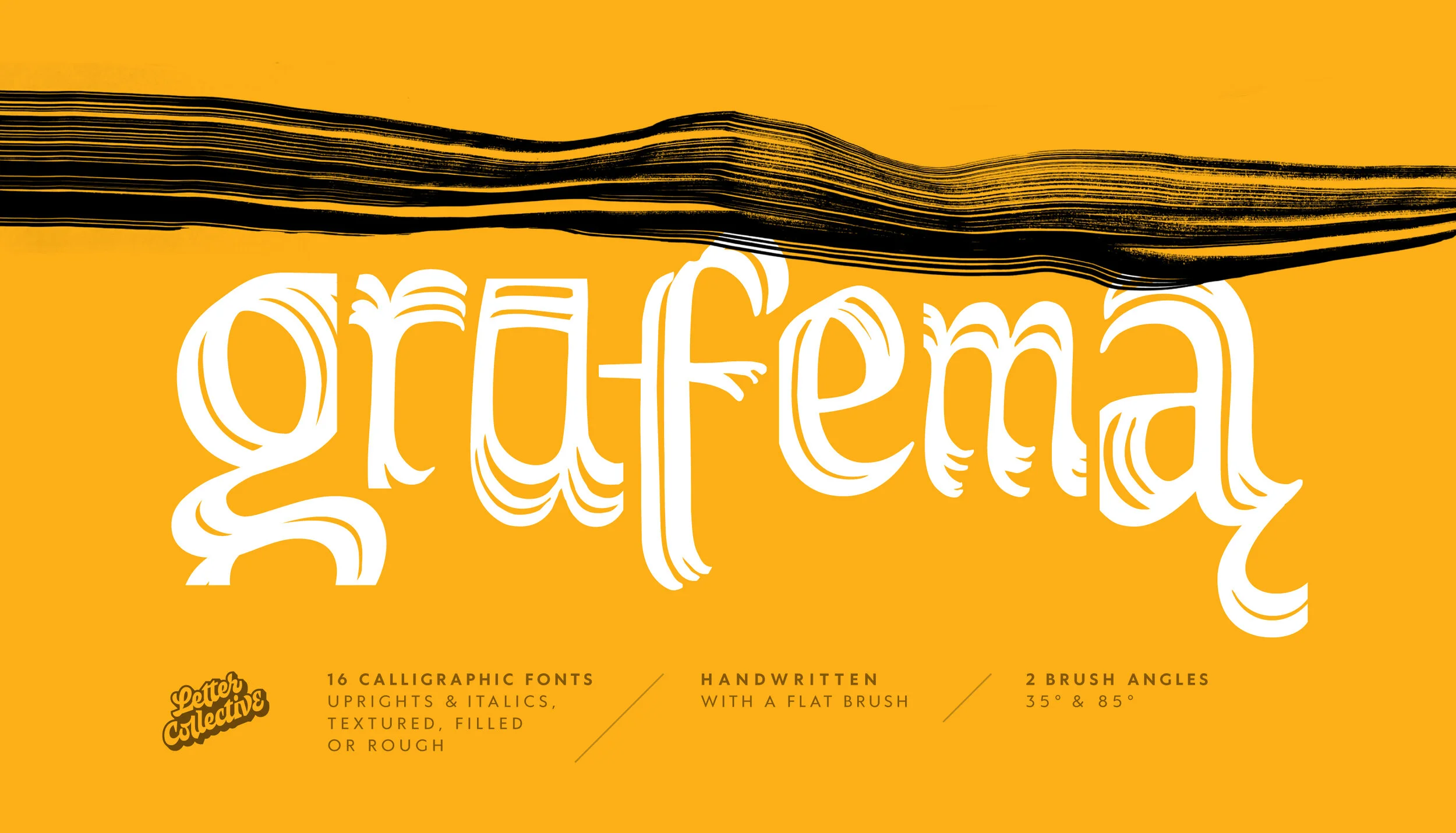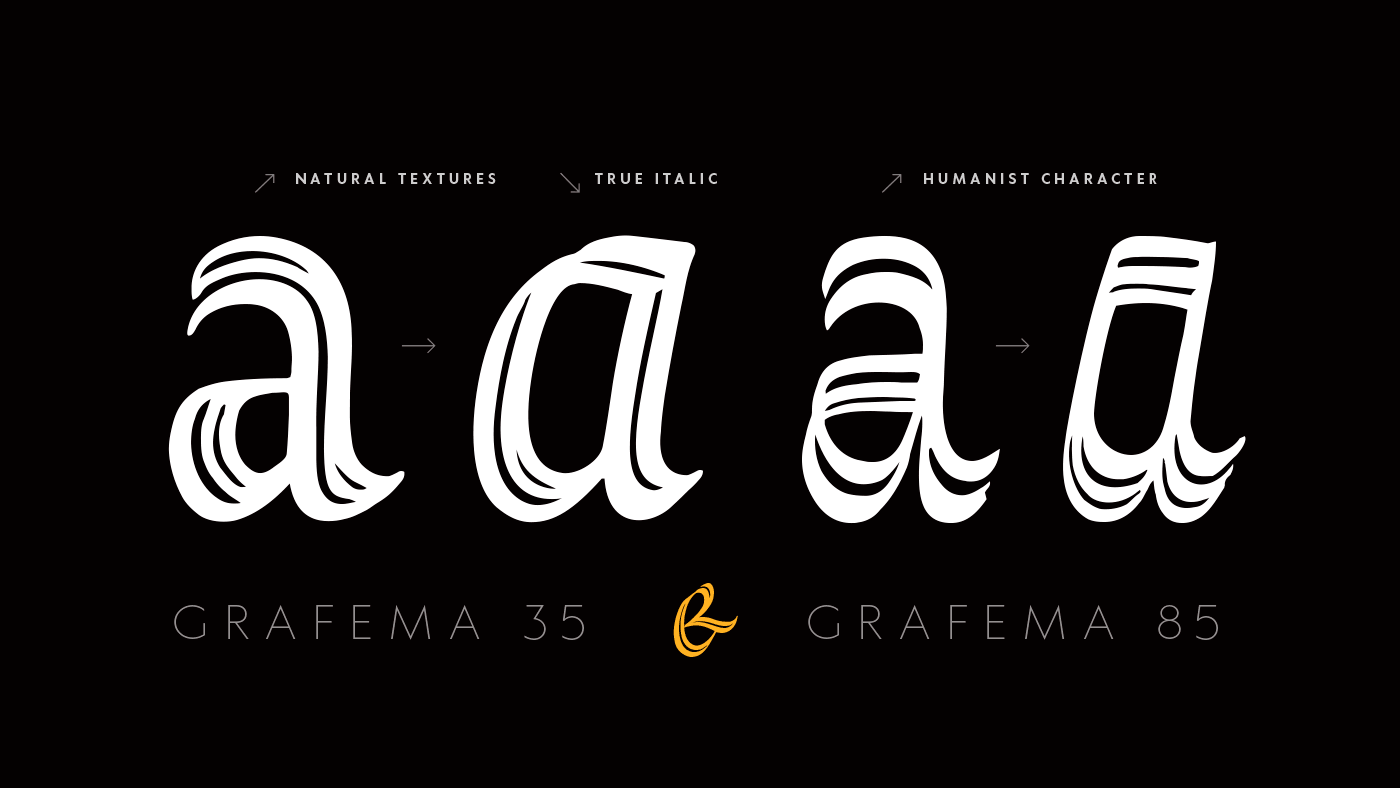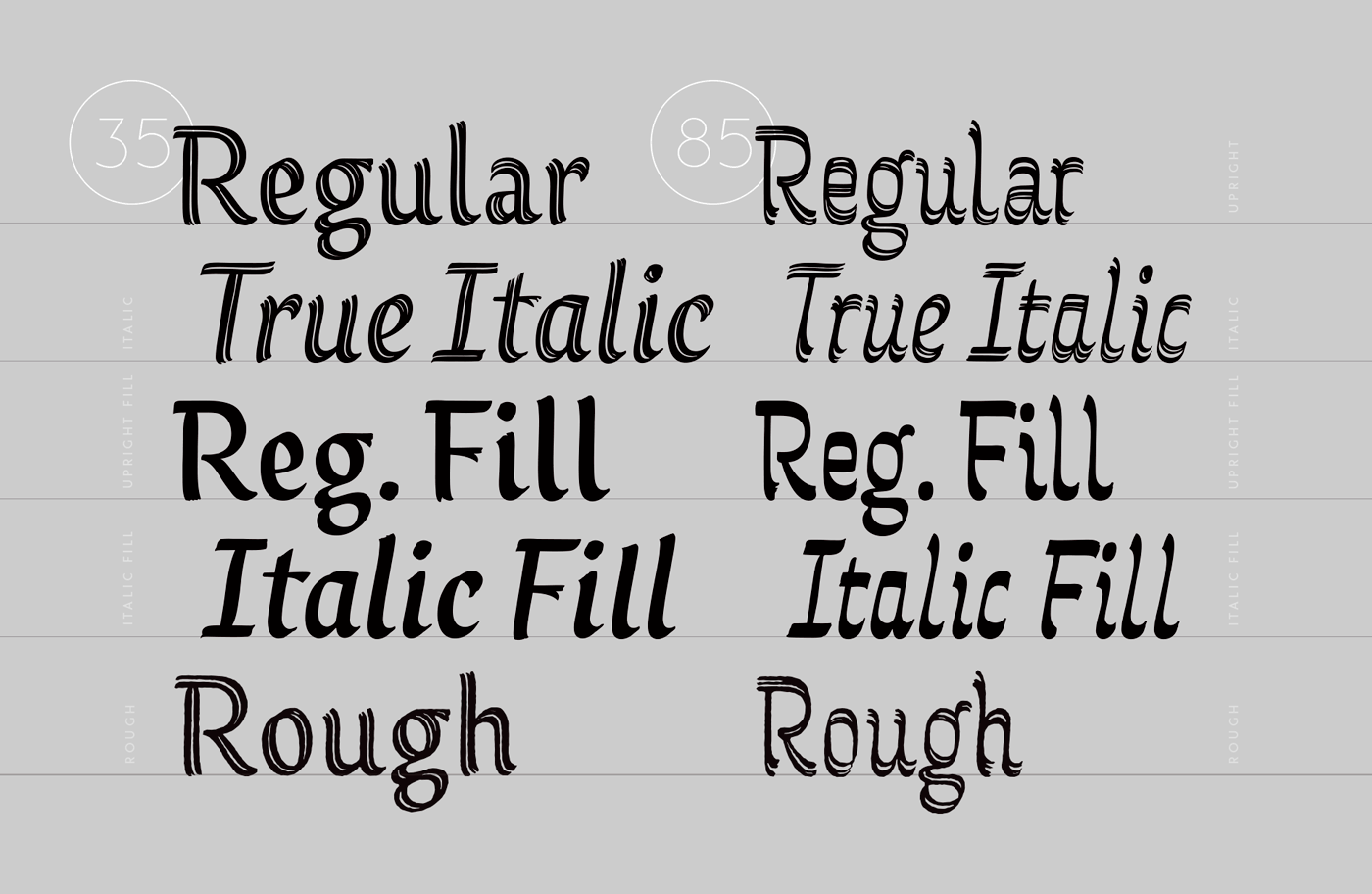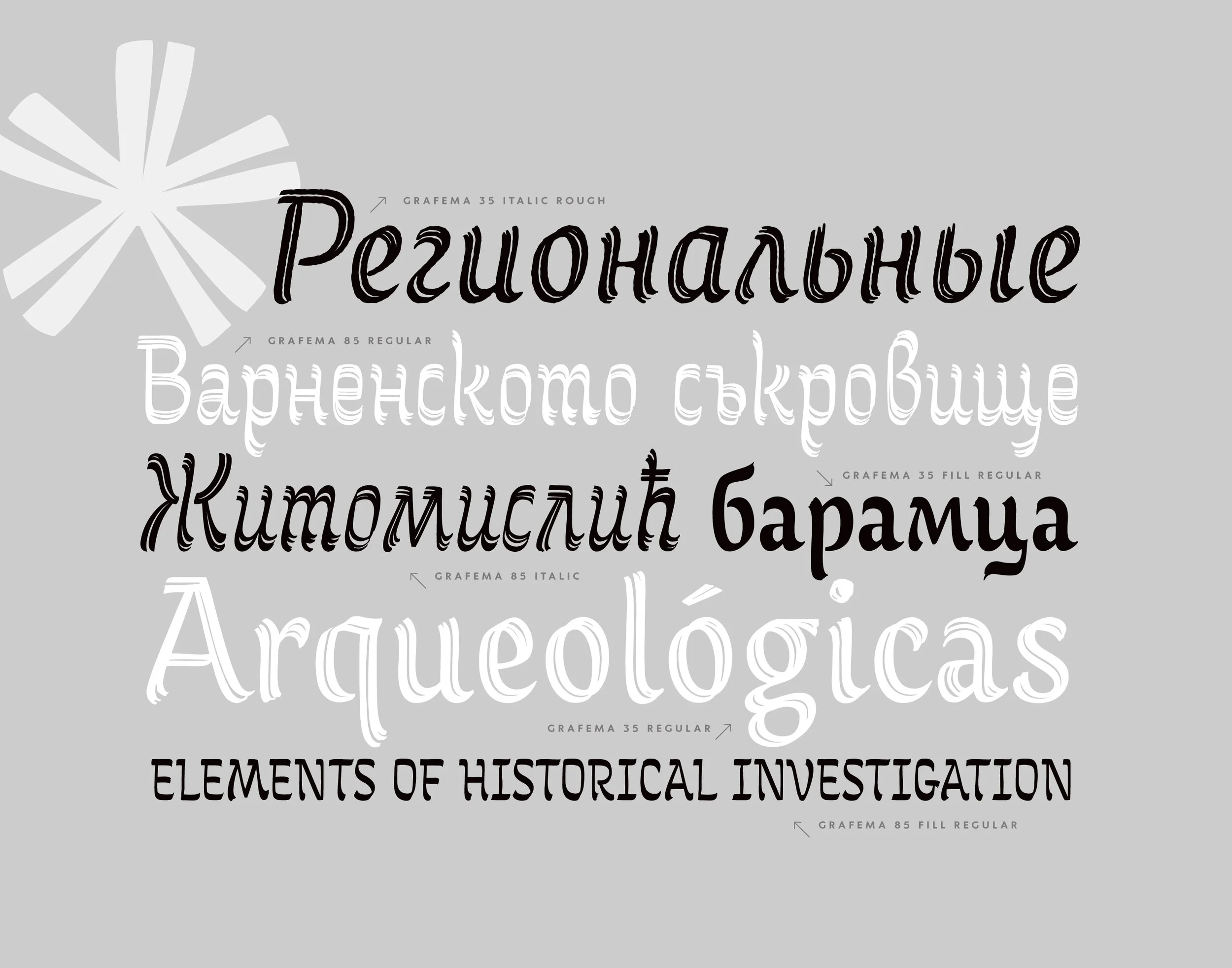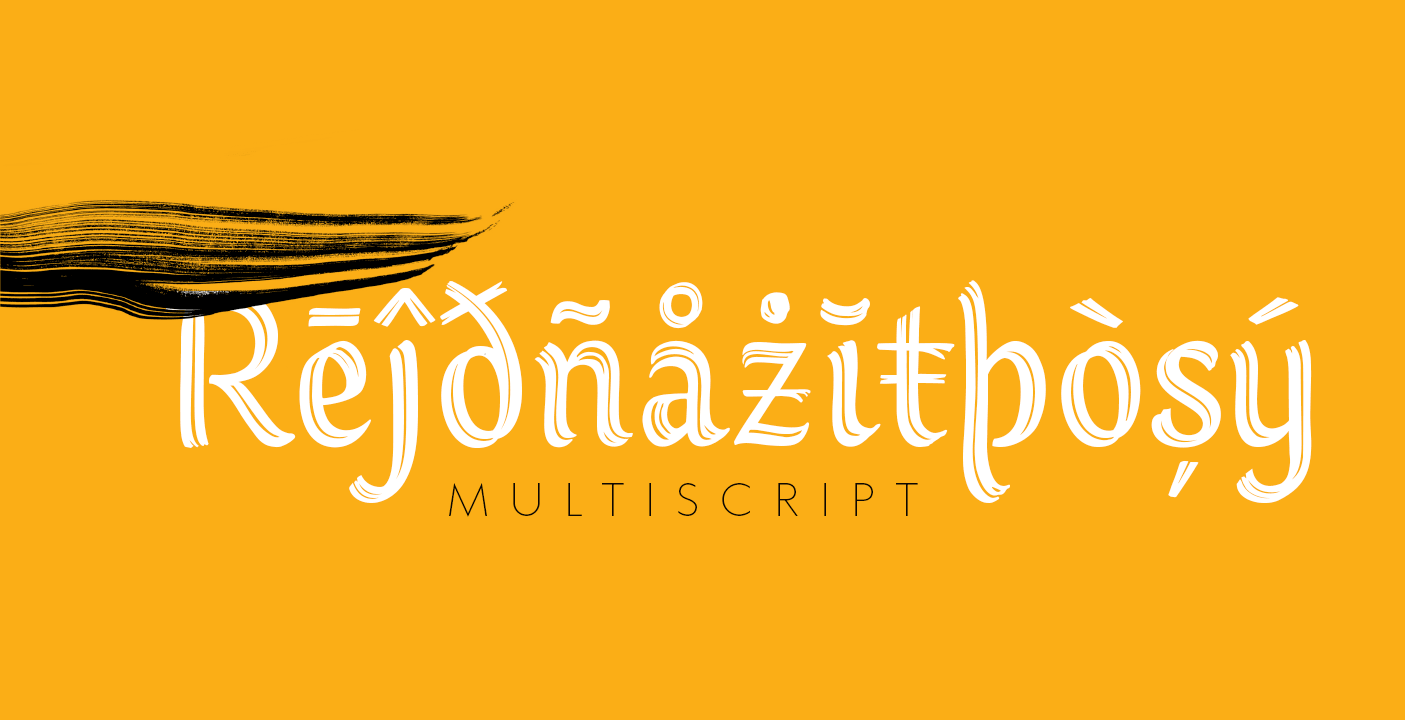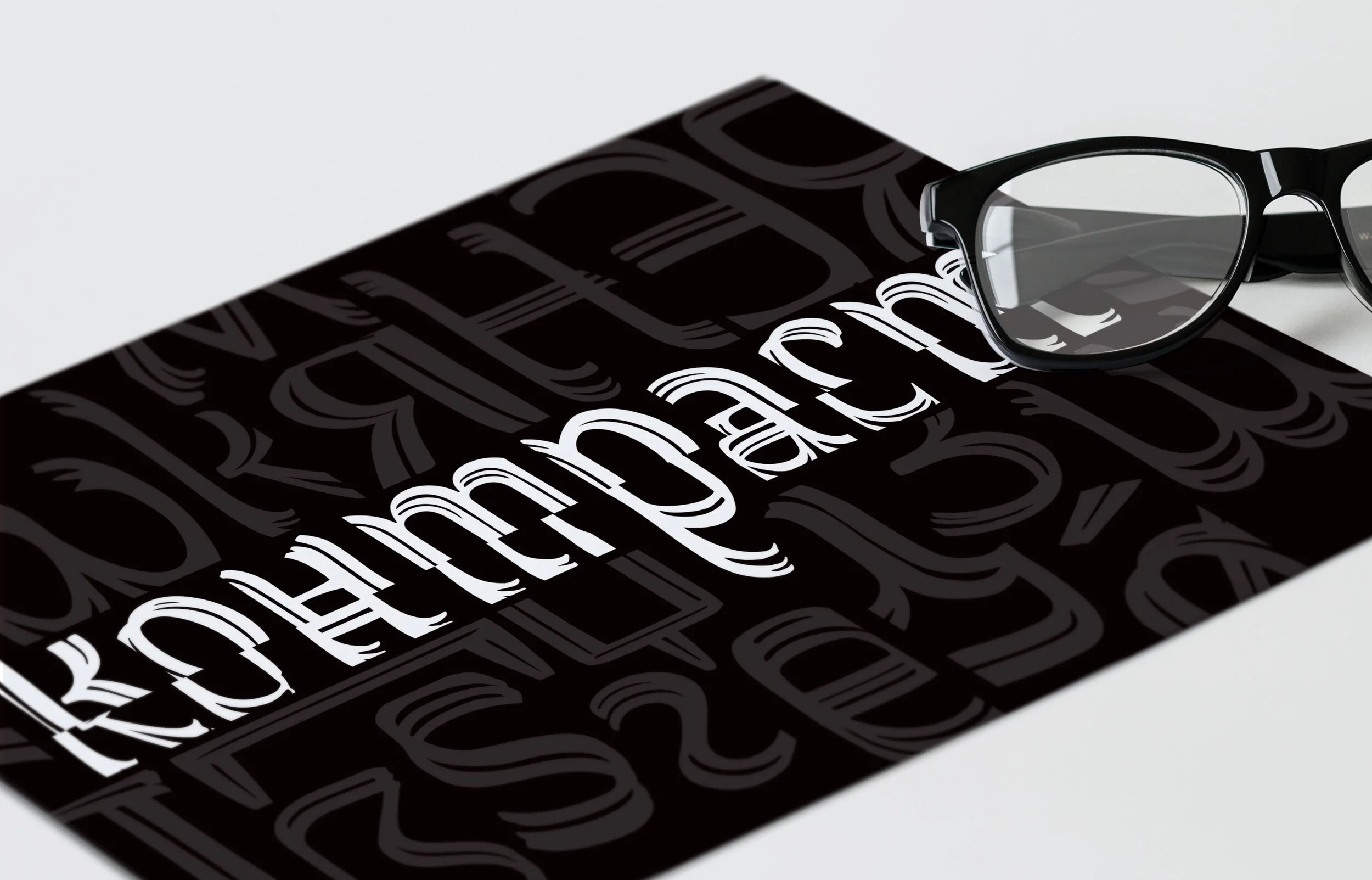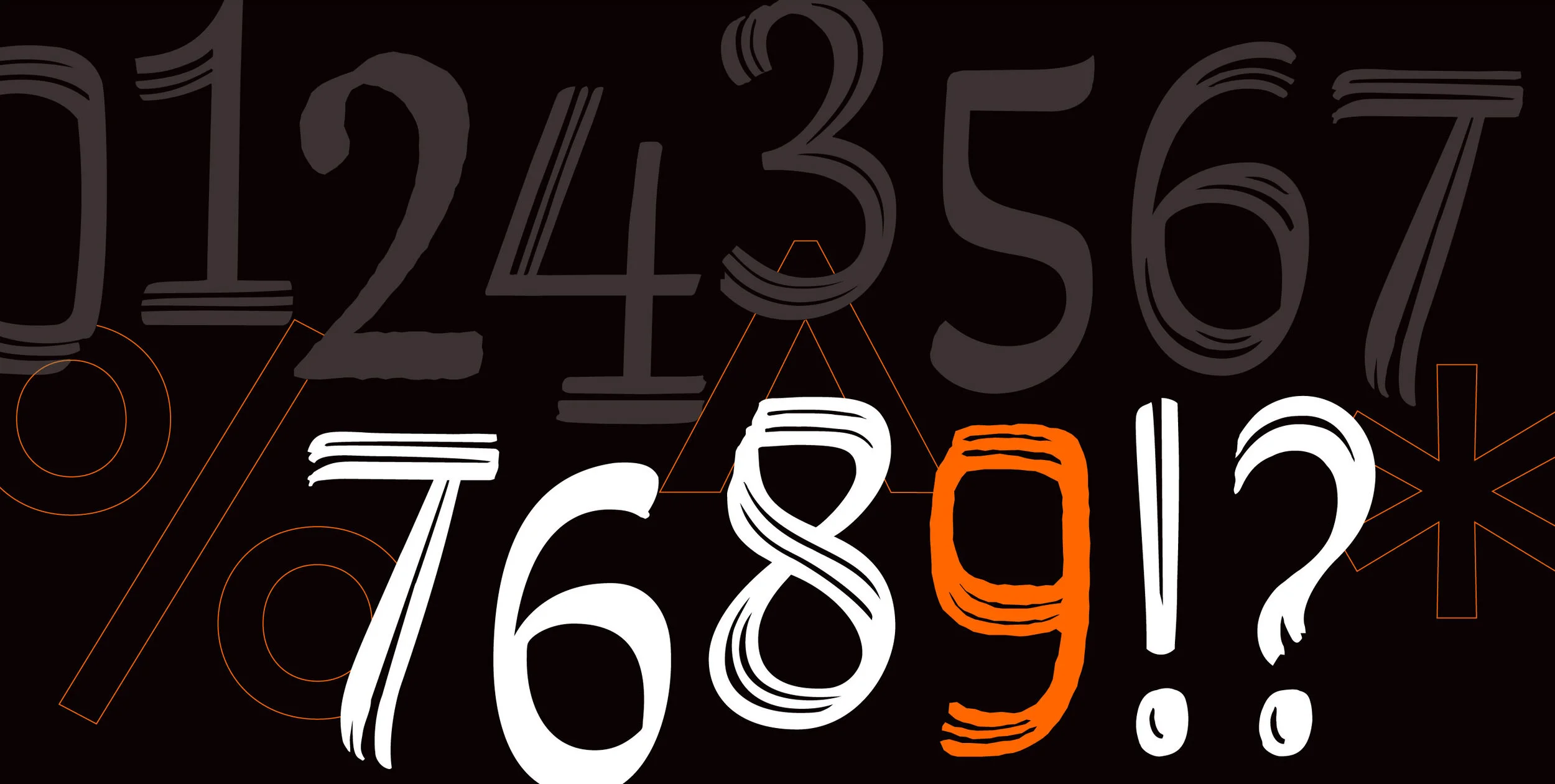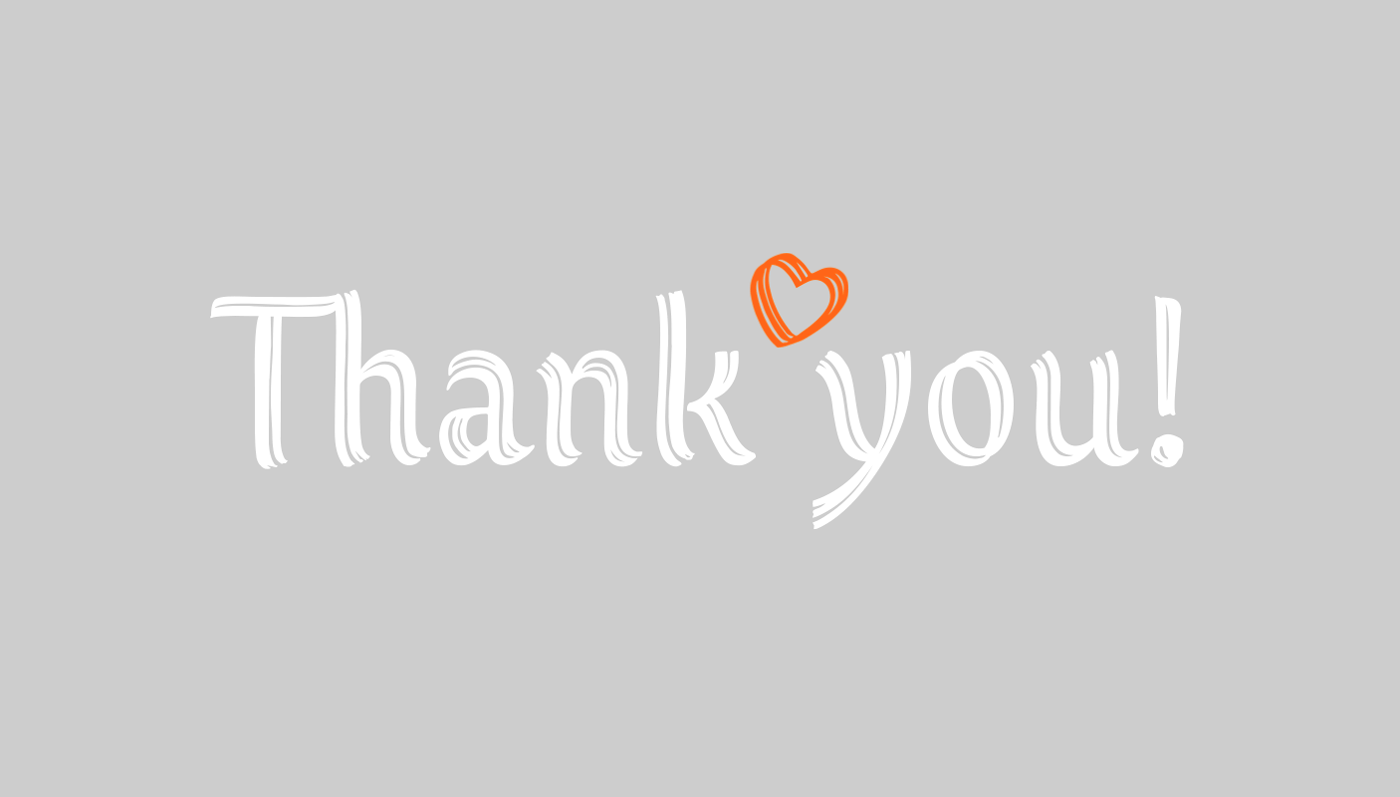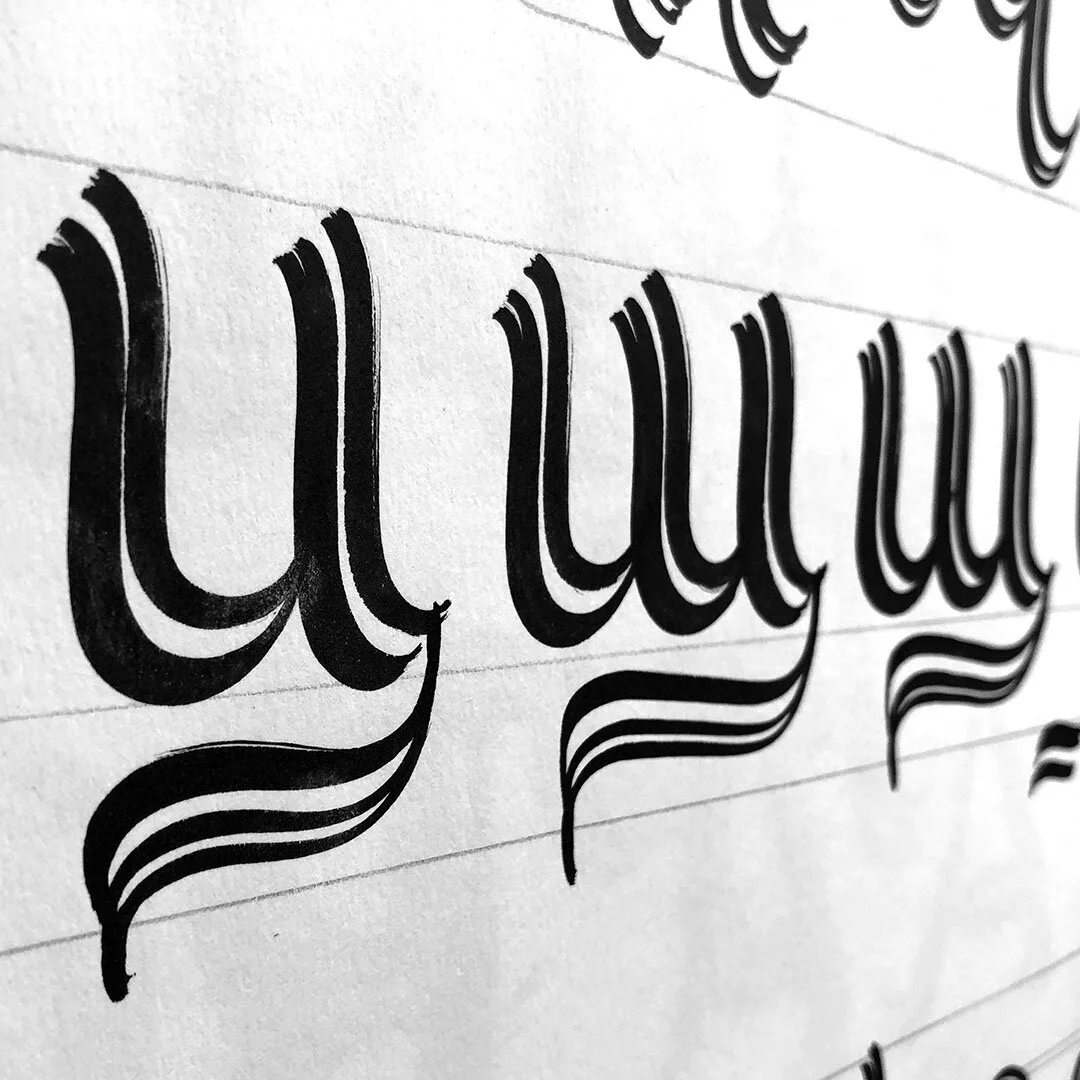
Grafema LC
is a system of display typefaces consisting of 7 variants – upright, italic, textured, filled, rough, traditional contrast and inverted. Grafema LC started off as handwritten calligraphic works using a flat brush and variable angles of writing – 35° and 85°. It supports Extended Latin and Extended Cyrillic – more than 120 languages altogether. The balanced natural texture along with unique details makes Grafema LC perfect for headlines, but also suitable for lengthier texts. It is ideal for use in all kinds of graphic design projects such as the packaging, posters, logotypes, greeting cards and of course online content.
Grafema 35 has a more classical angle of writing – 35°, which makes the vertical stems of the letters broader since they utilize most of the instrument’s width. This cut is balanced throughout and suitable for large bodies of text.
Grafema 85 stands out with its more decorative appearance and is more appropriate for usage in headlines, posters and all projects created with a personal touch. The angle of writing shifts the stress immensely and therefore reforms the overall proportions of the letter. This style is more condensed than the other and is easily distinguishable with its thin vertical stems and accentuated heavy serifs.